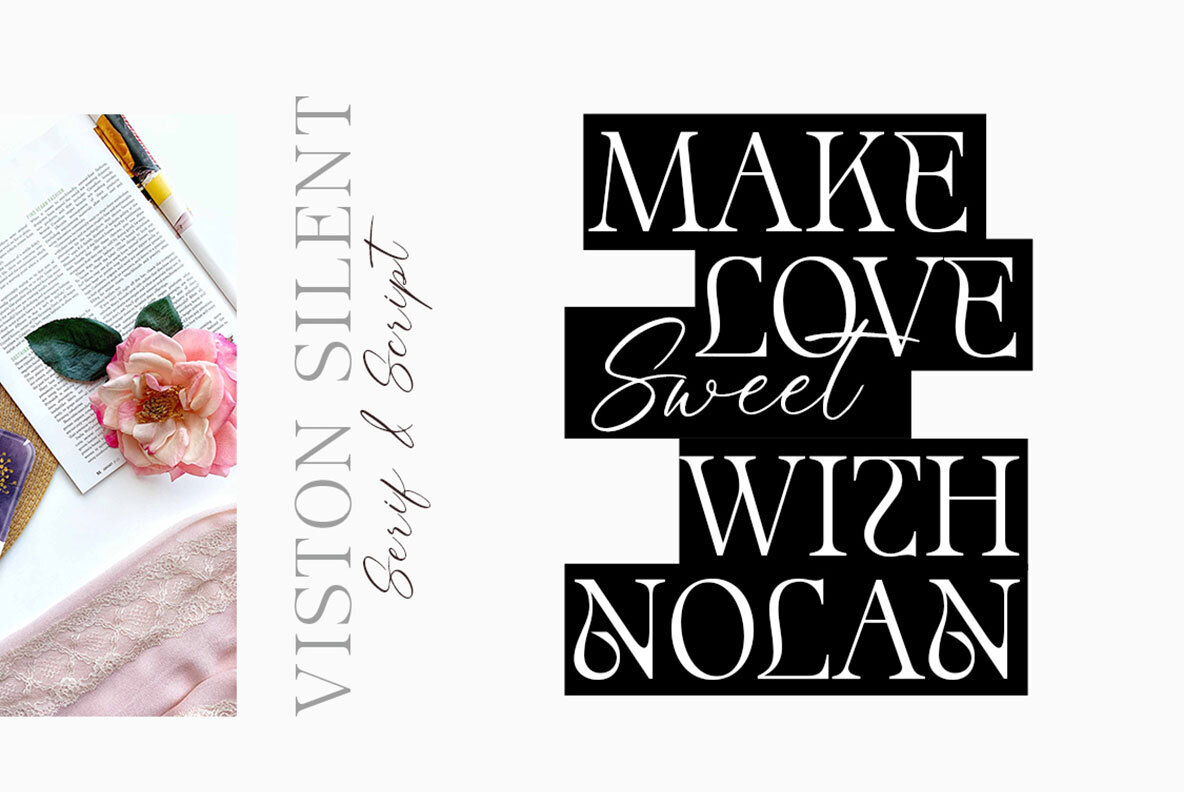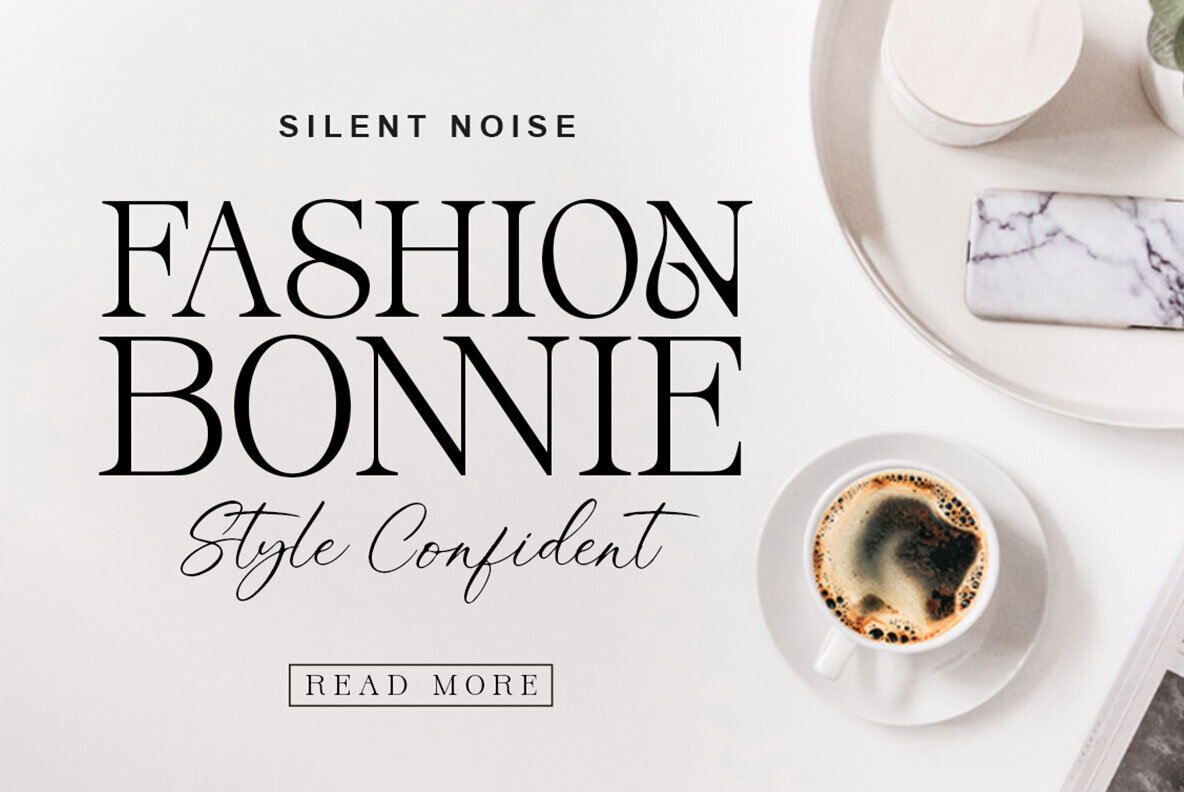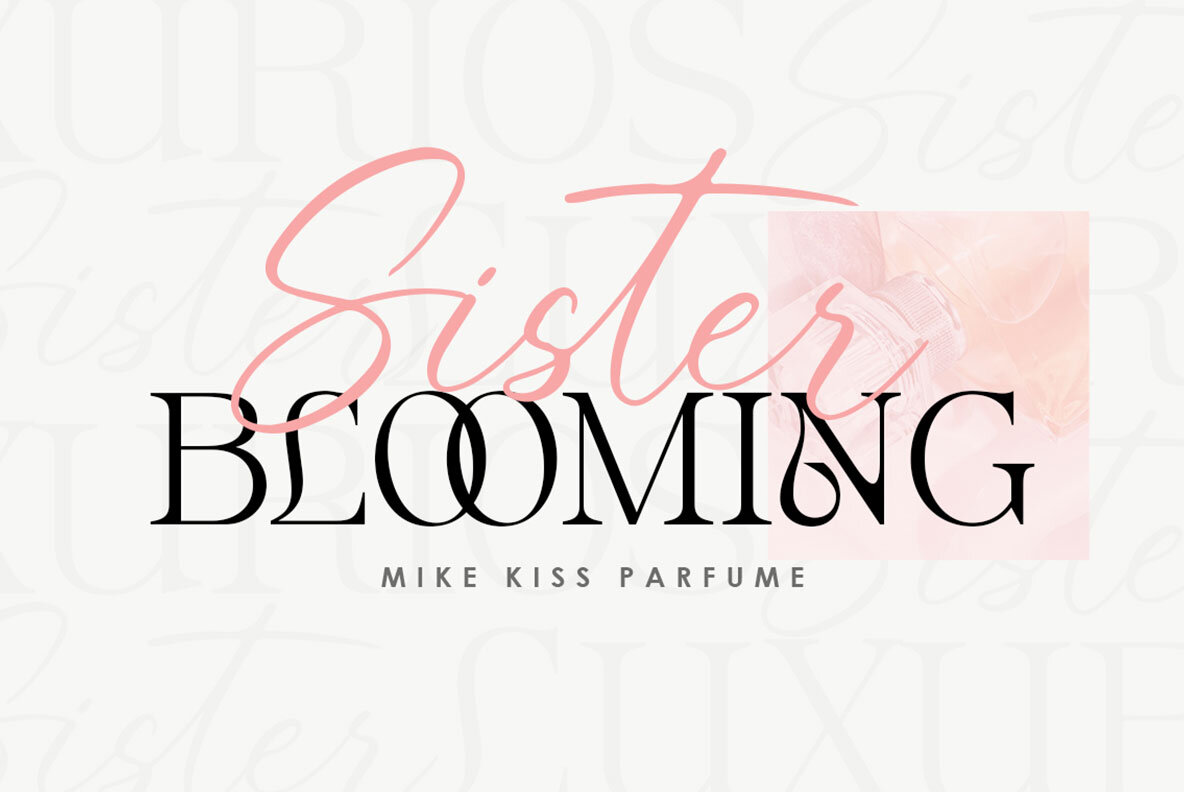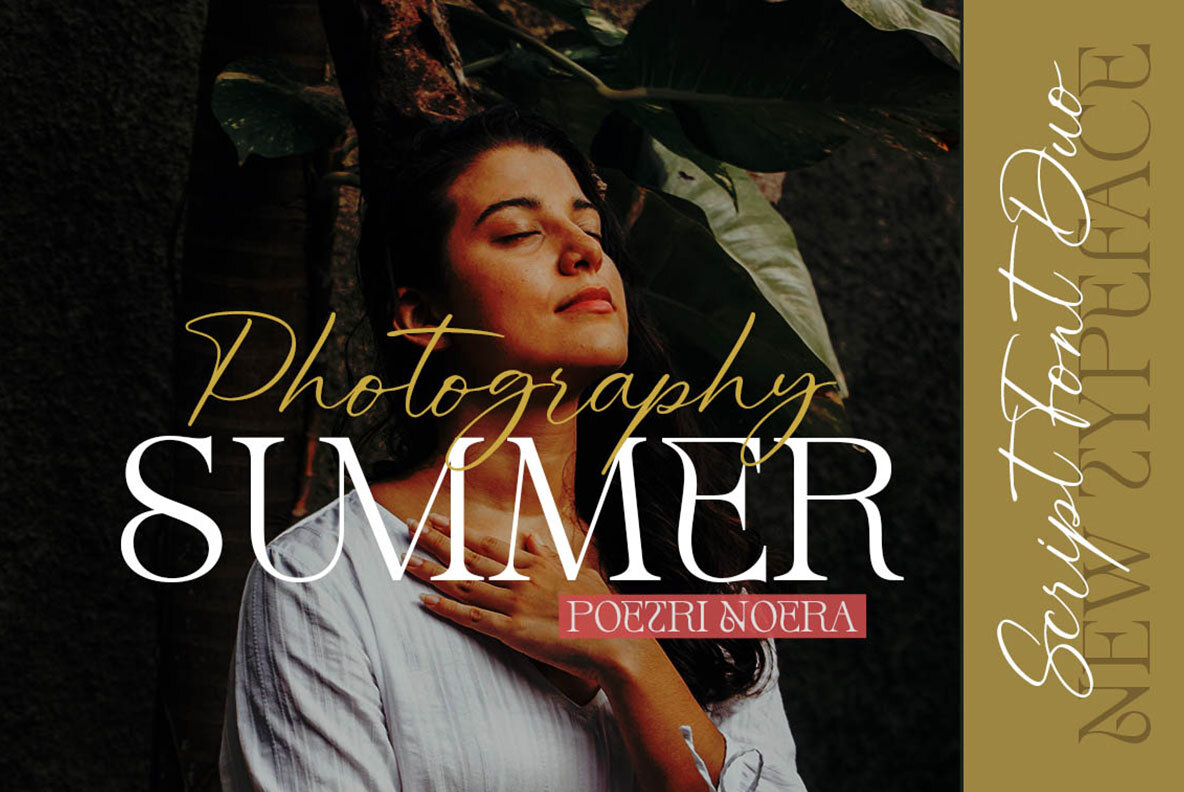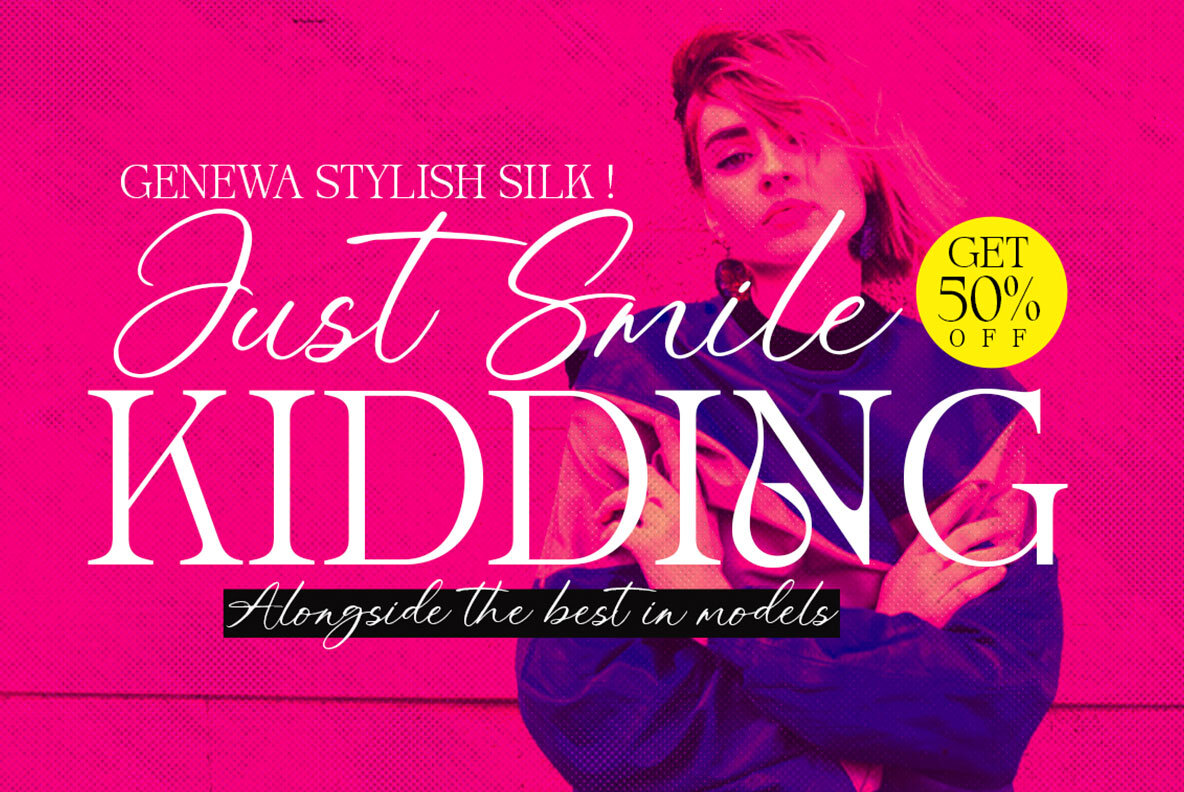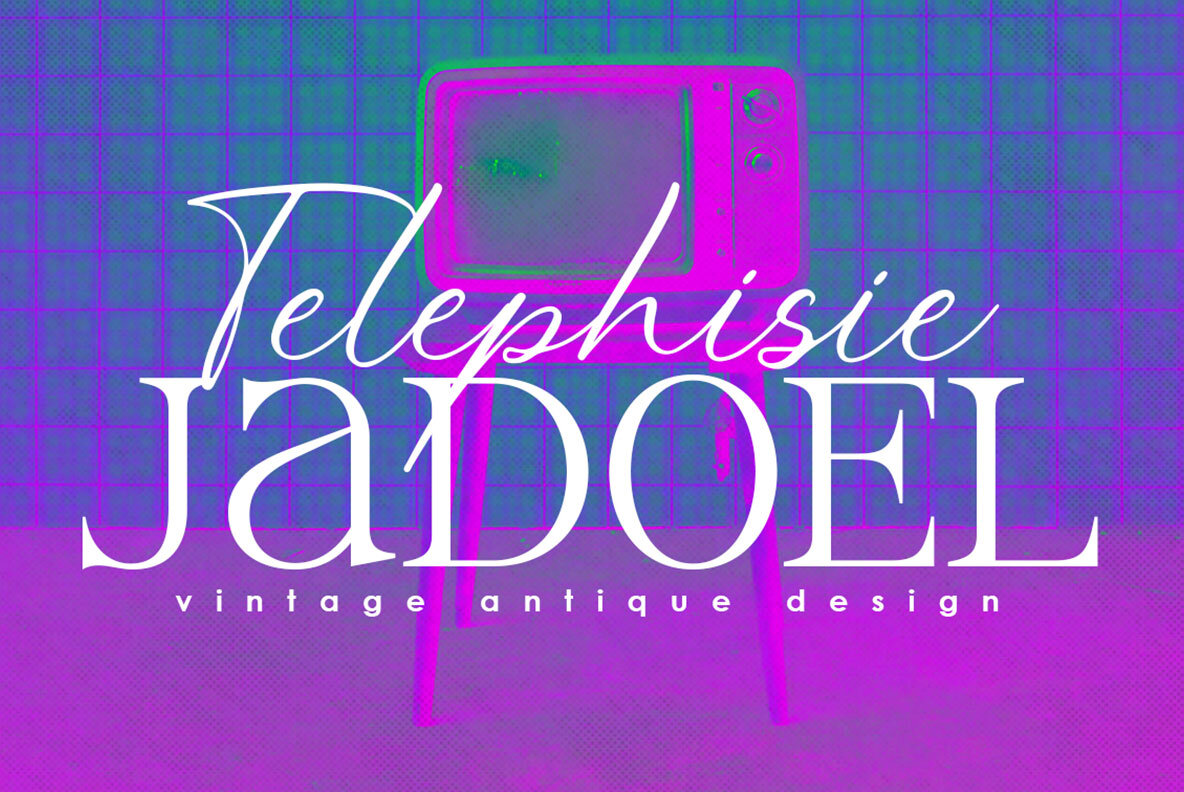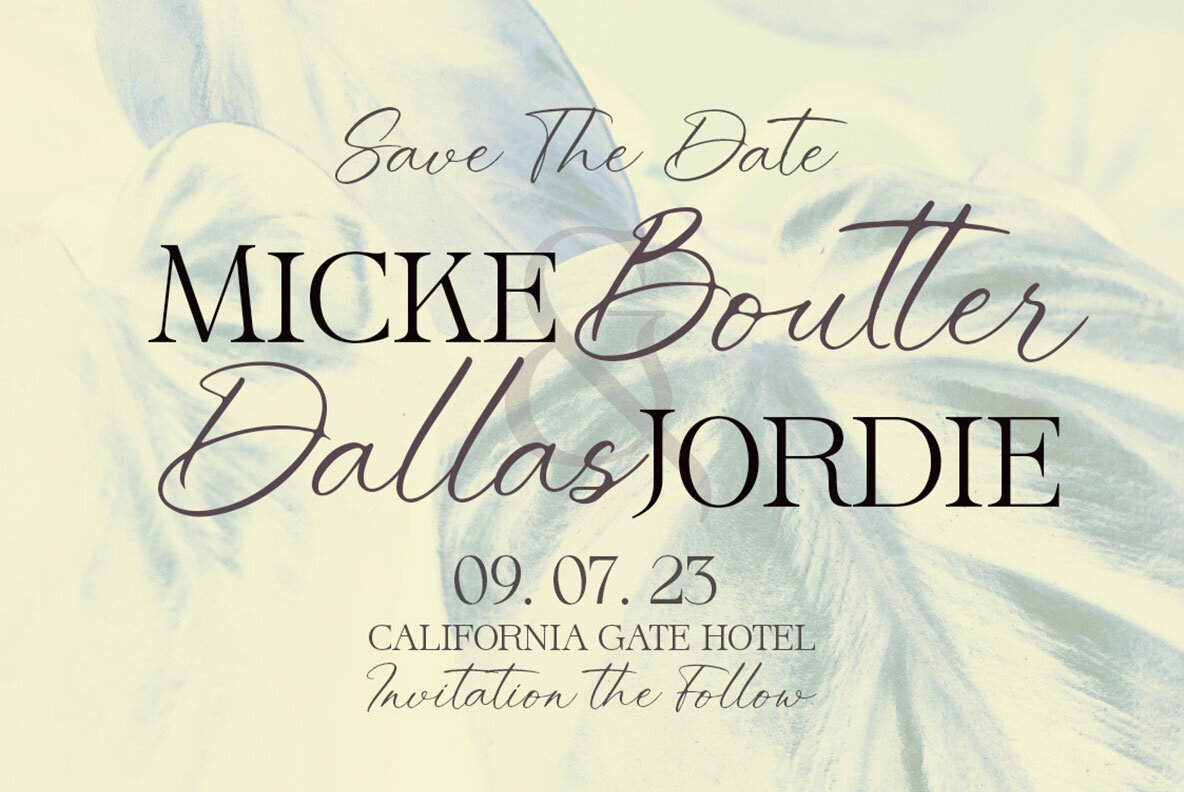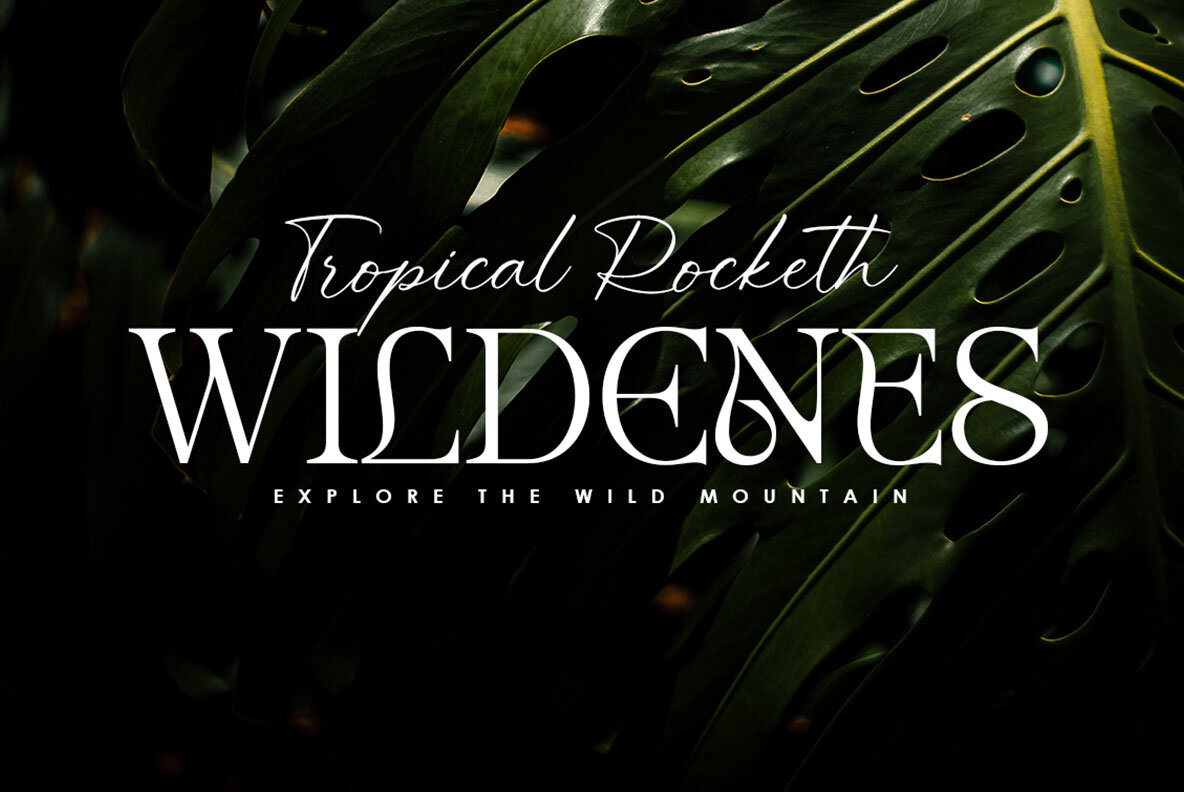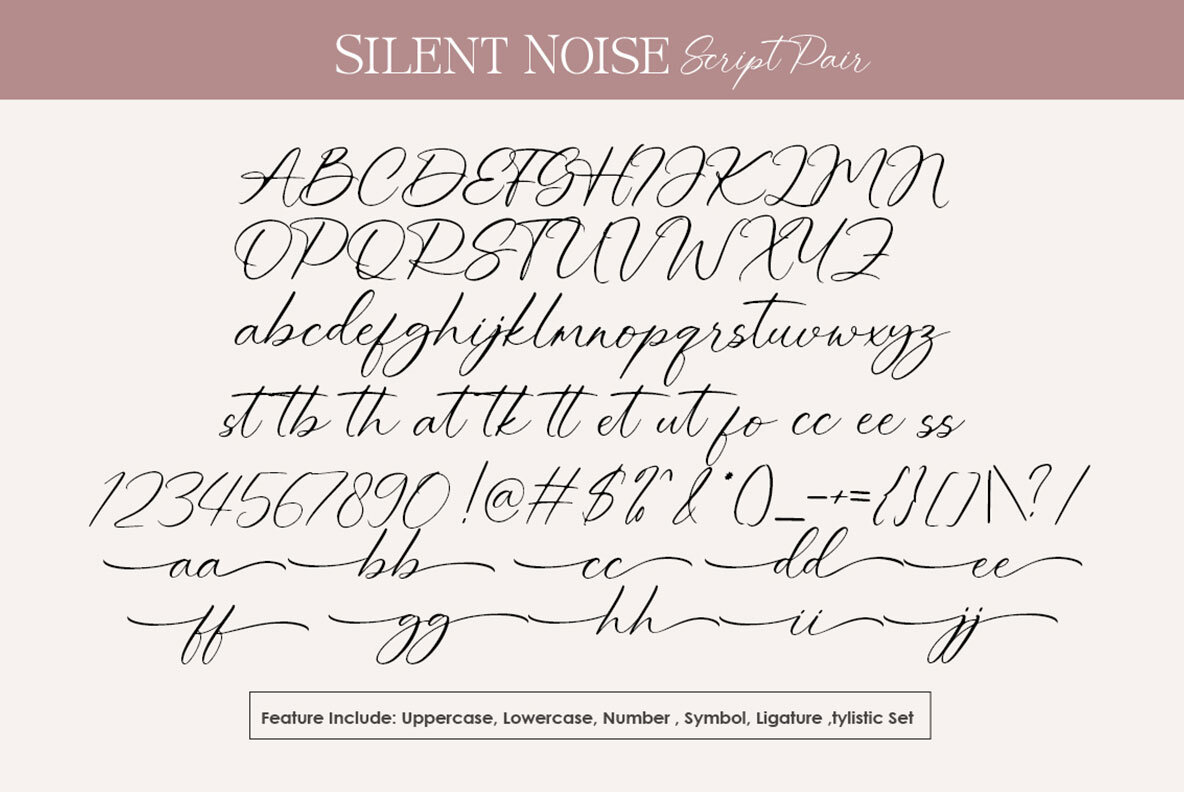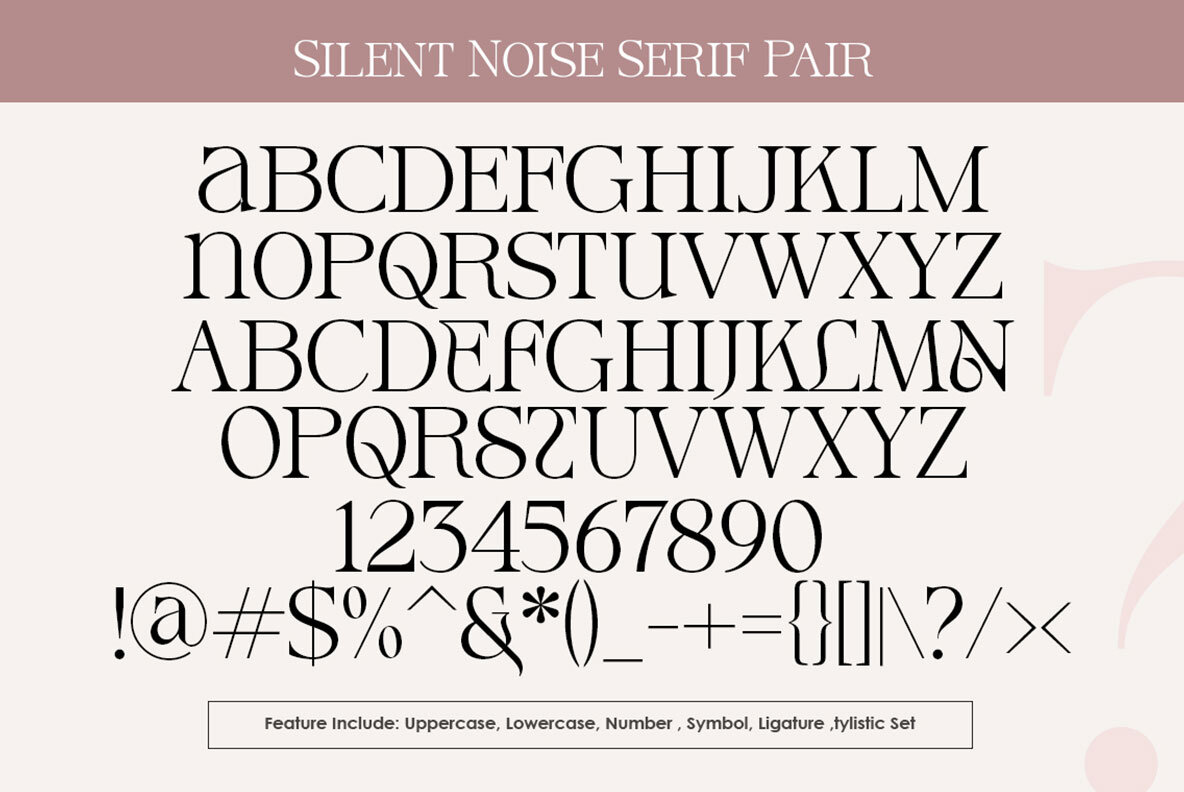
Silent Noise Font
Introducing Silent Noise, a stunning duo font that combines the timeless elegance of a serif typeface with the flowing elegance of calligraphy. This versatile font set includes two complementary styles that work together seamlessly to add sophistication and charm to your design projects, so you can create logos, social media posts, invitations, branding, magazines, product packaging and many other projects. FEATURES: - Uppercase & lowercase
- Numbers and punctuation
- Alternates & Ligatures